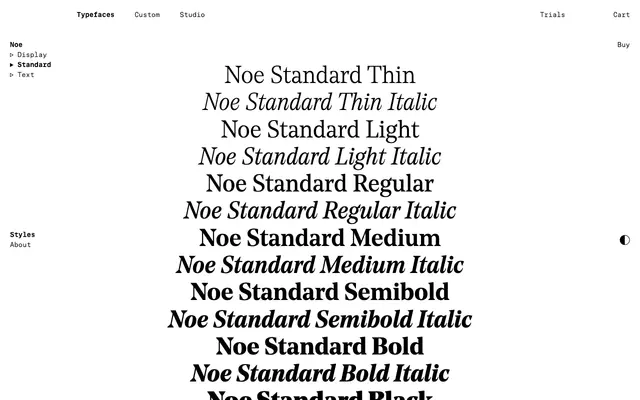
Noe Standard
Noe's middle optical size: a seven-weight Latin serif tuned for subheads, intros, pull quotes and large sizes on screen.
Noe Standard is the middle optical size of the Noe family. The foundry describe it as the right cut for situations where Noe Display would be too delicate and Noe Text too rugged, including subheads, intros, pull quotes and large sizes on screen. Seven weights from Thin to Black with matching italics carry the family's wedge serifs, beaked arches and high contrast at this scale, paired up to Noe Display for headlines and down to Noe Text for body copy.
The middle optical size of Noe; the foundry describe it as suited to subheads, intros, pull quotes and big sizes on screen, where Display would be too delicate and Text too rugged.